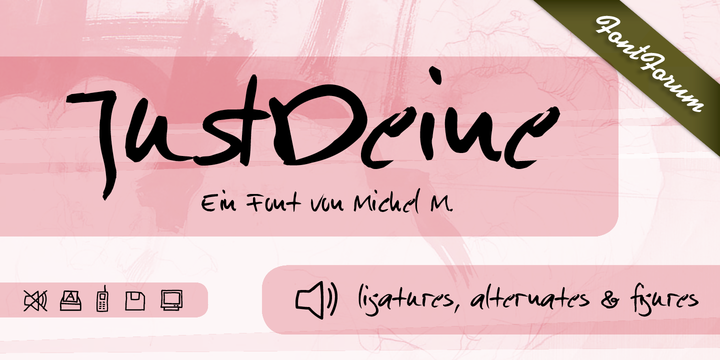
Just Deine™
The idea was to create a fully equipped handwriting script. Thus equipped with all kinds of typographic features like for example true small caps, lots of special characters, different sets of figures, real underlining, all characters as sub- and subscripts, the cap variations, OpenType-features for controlled character string modulations ... In a nutshell: a fully equipped handwriting script.